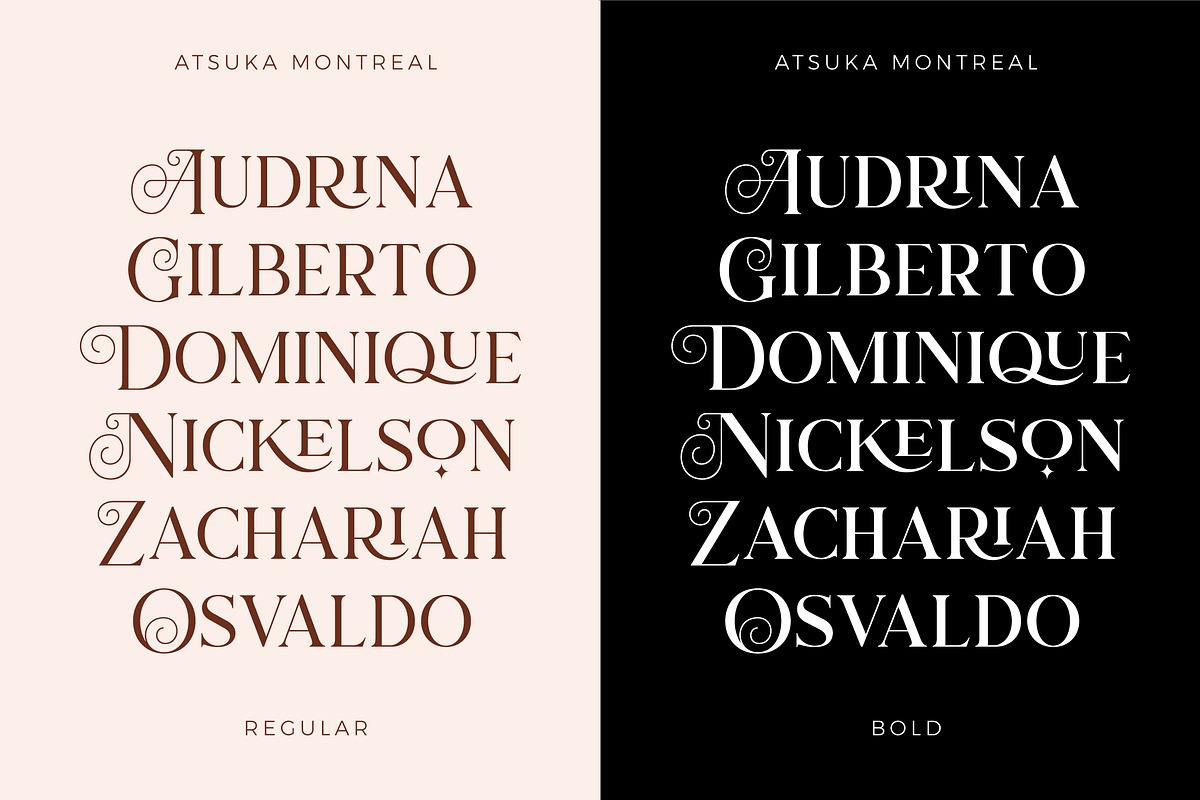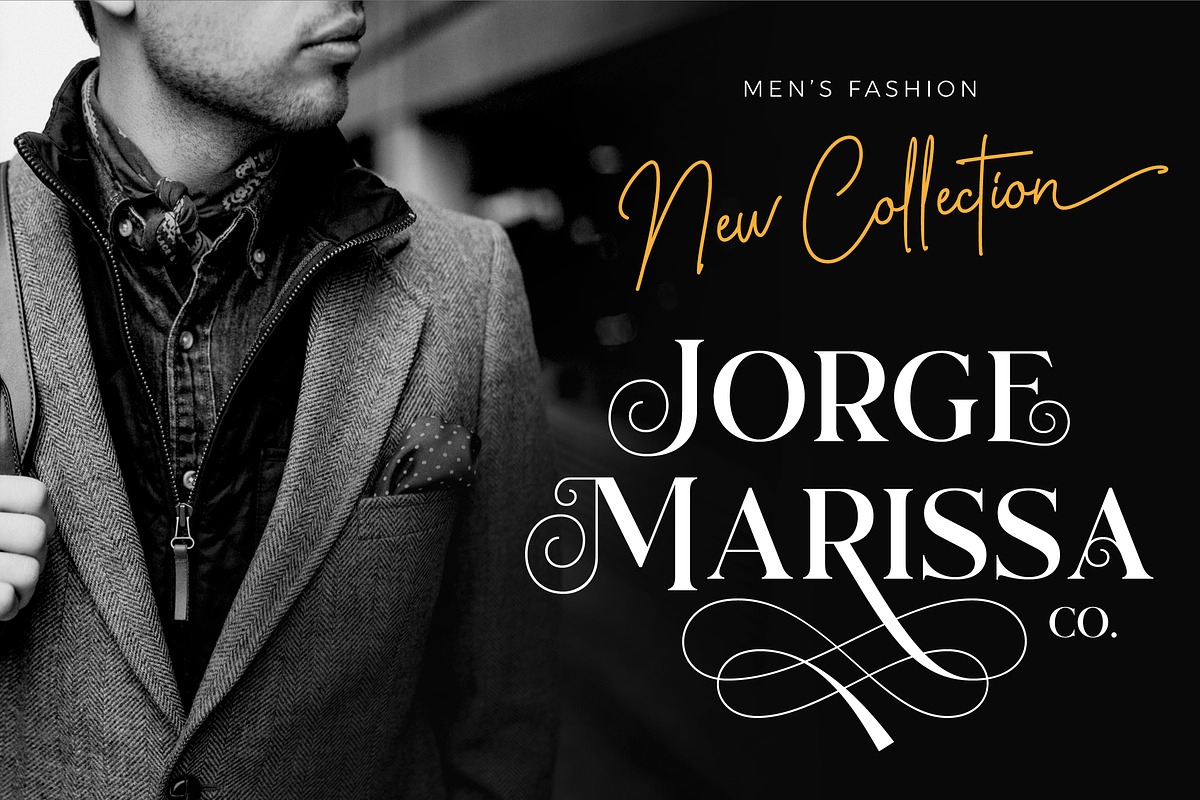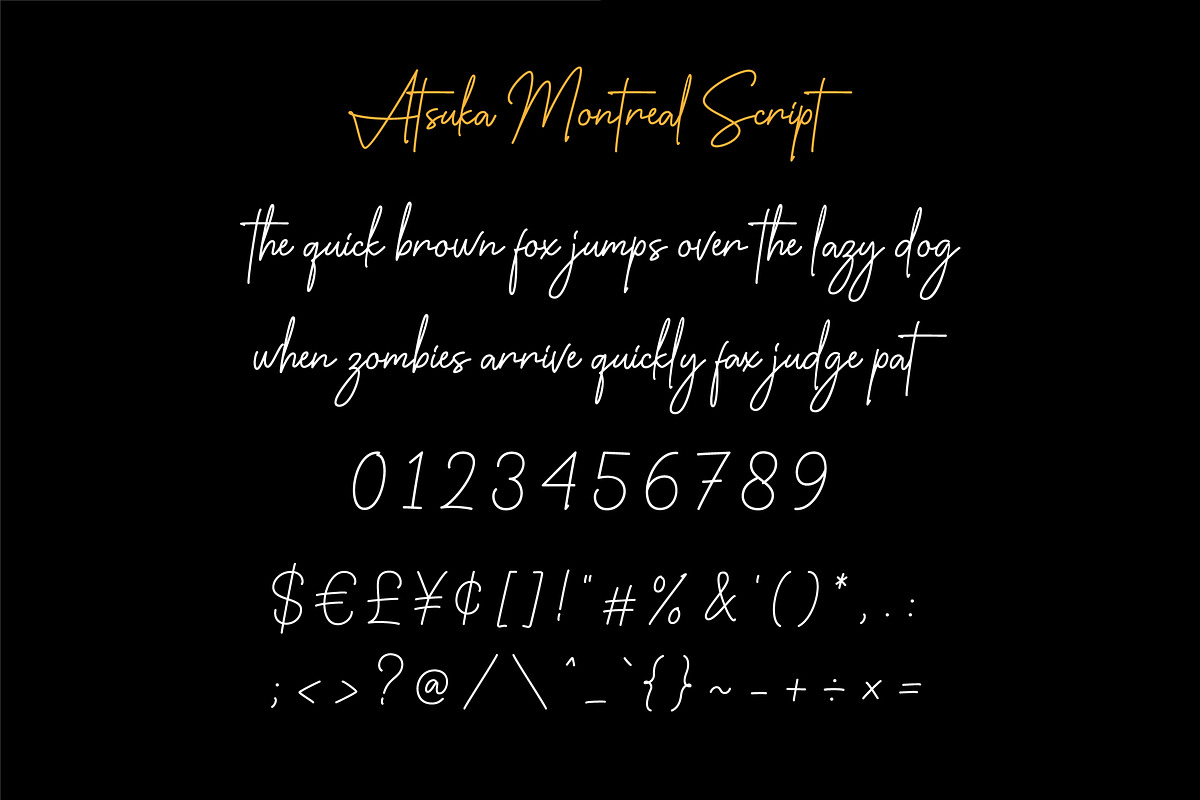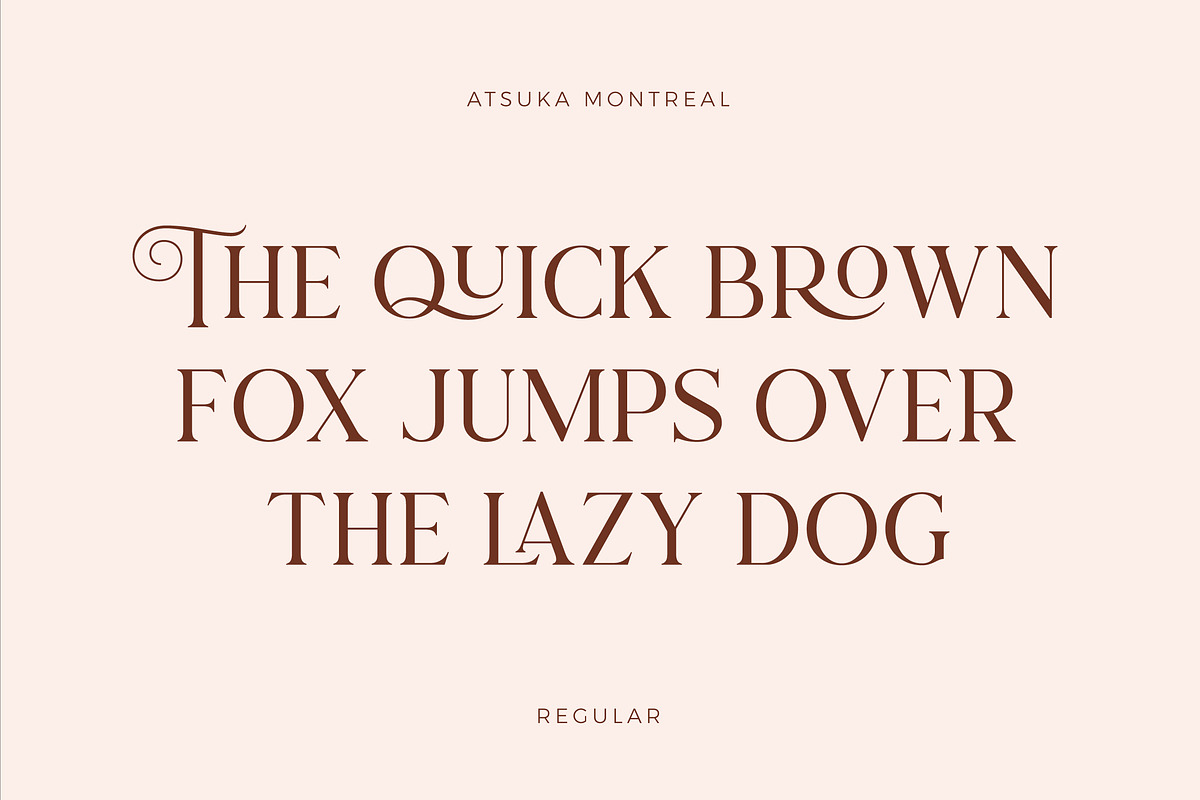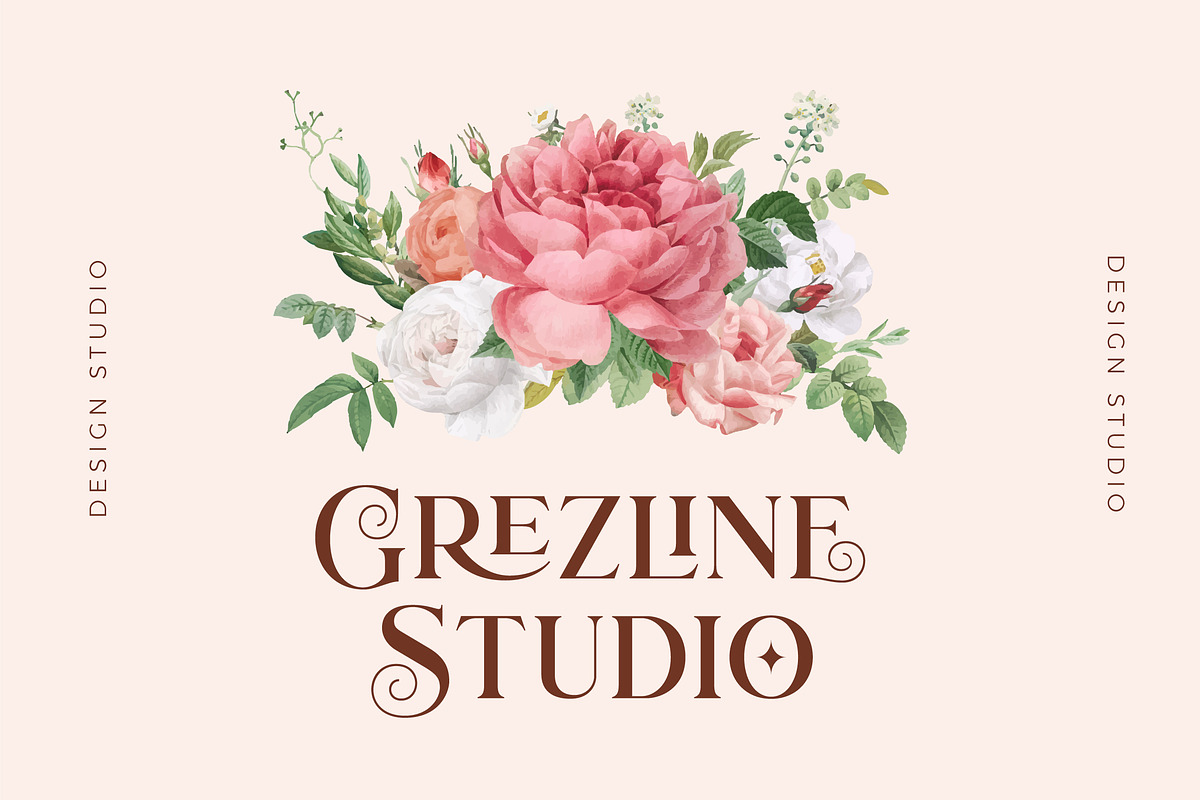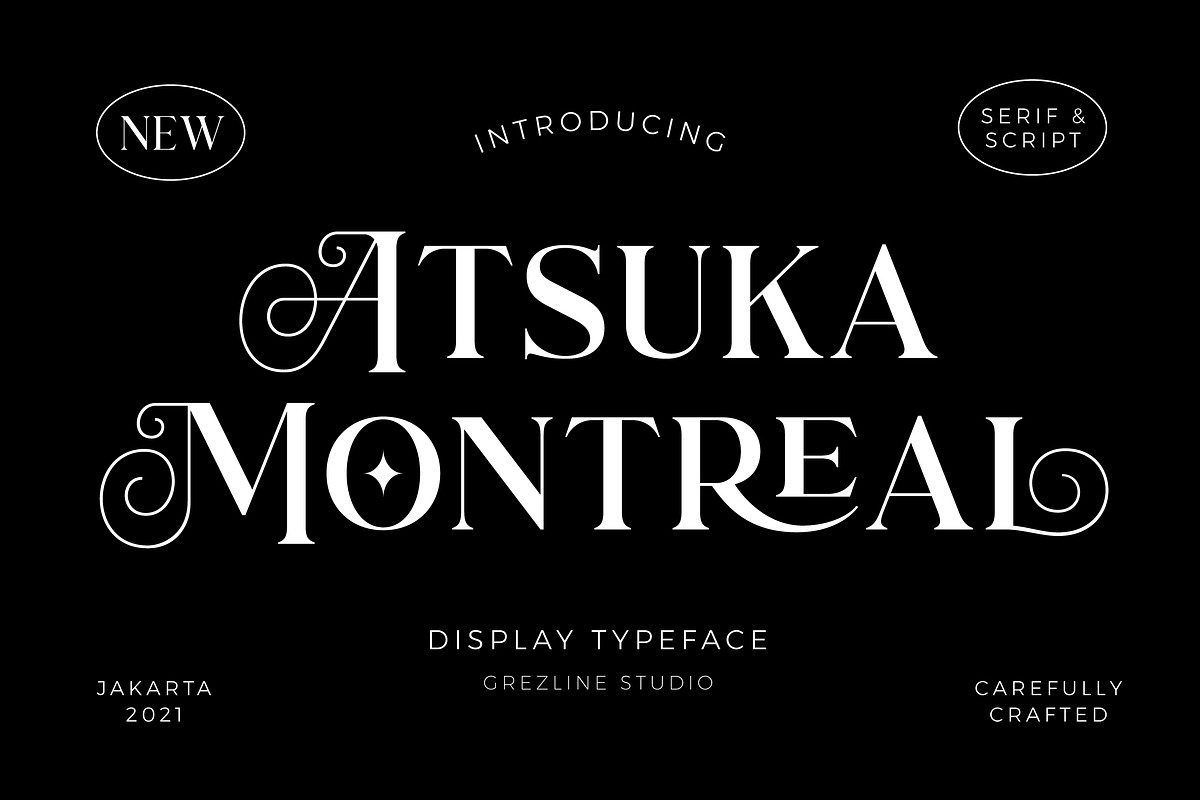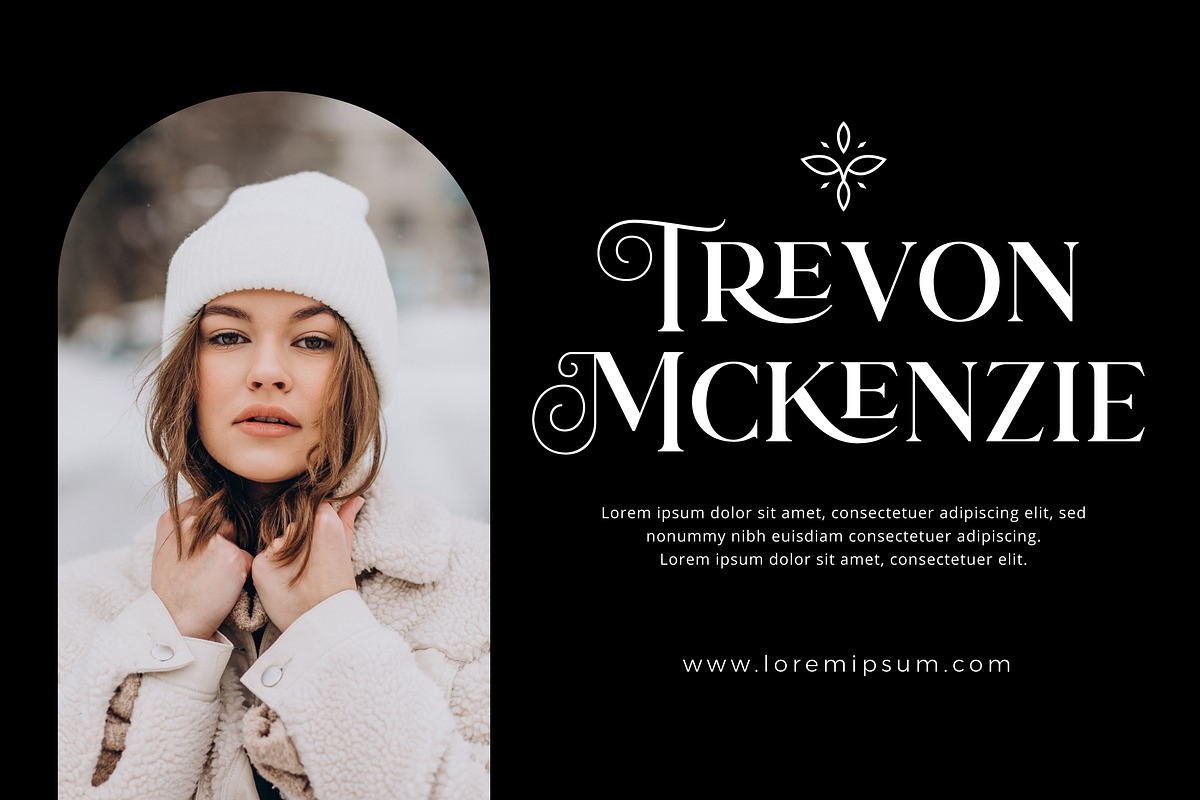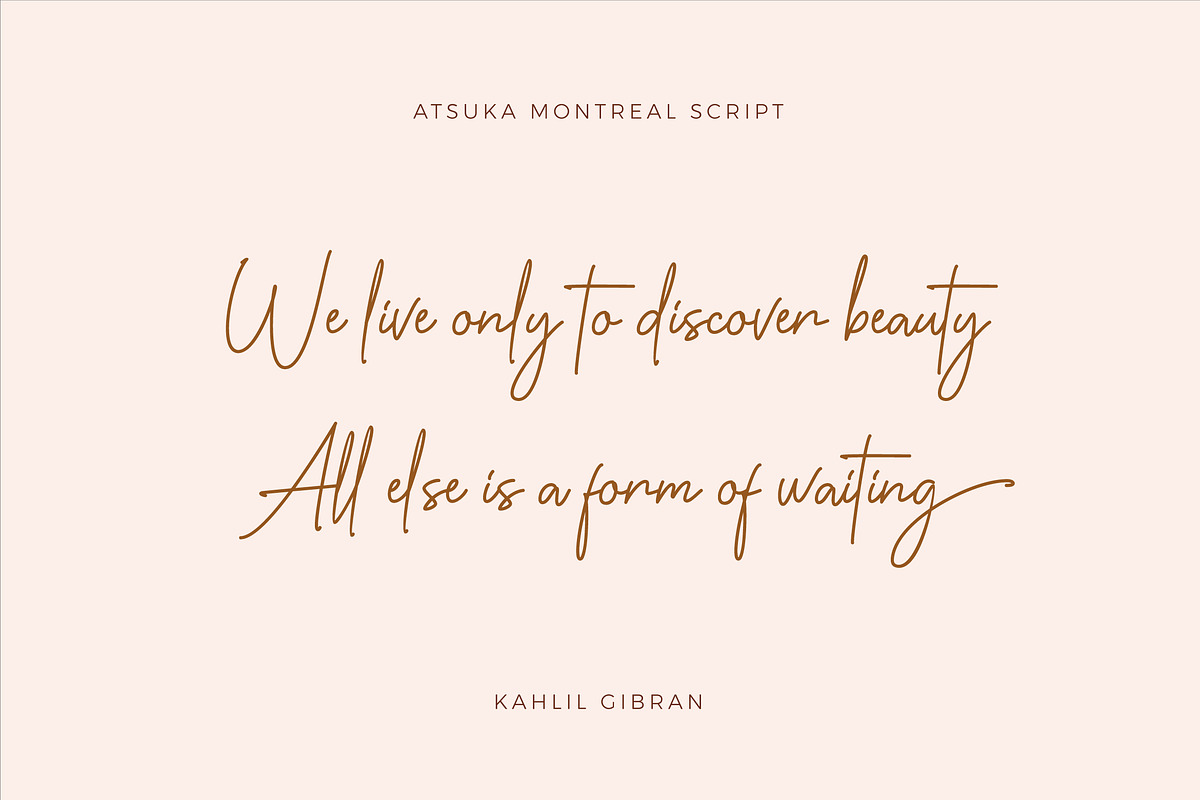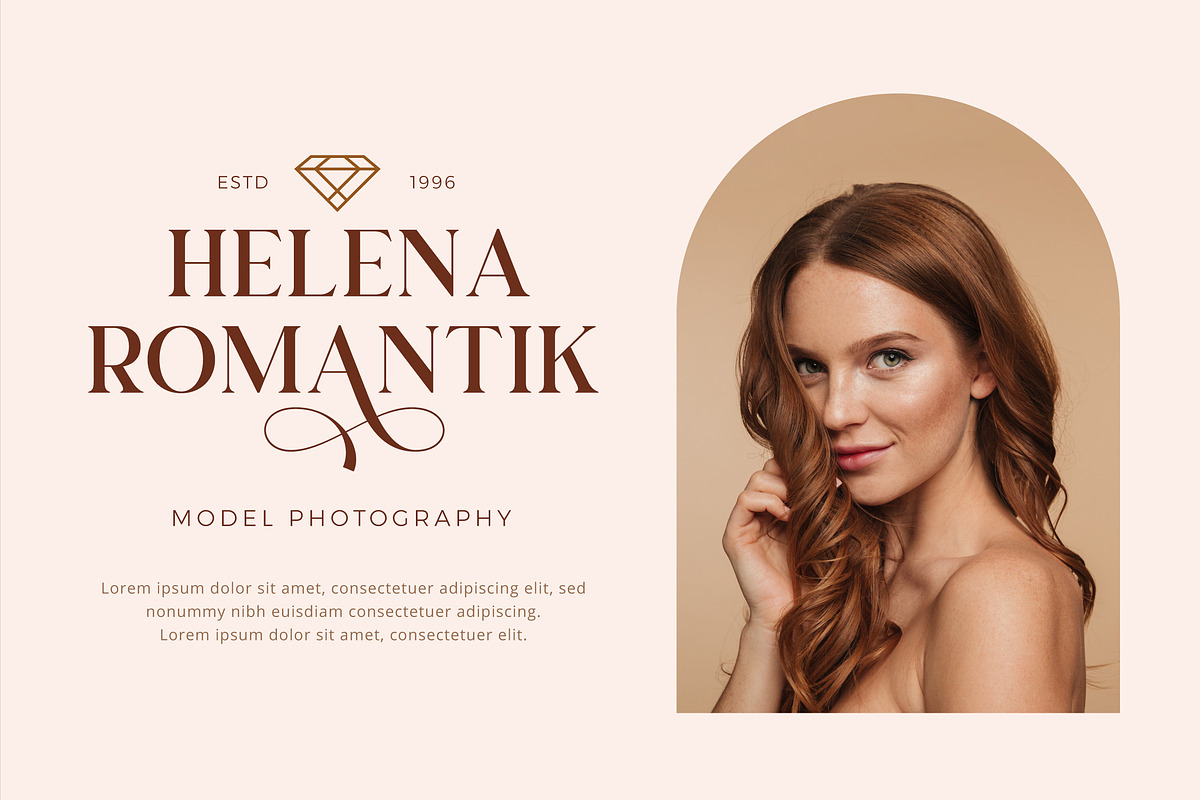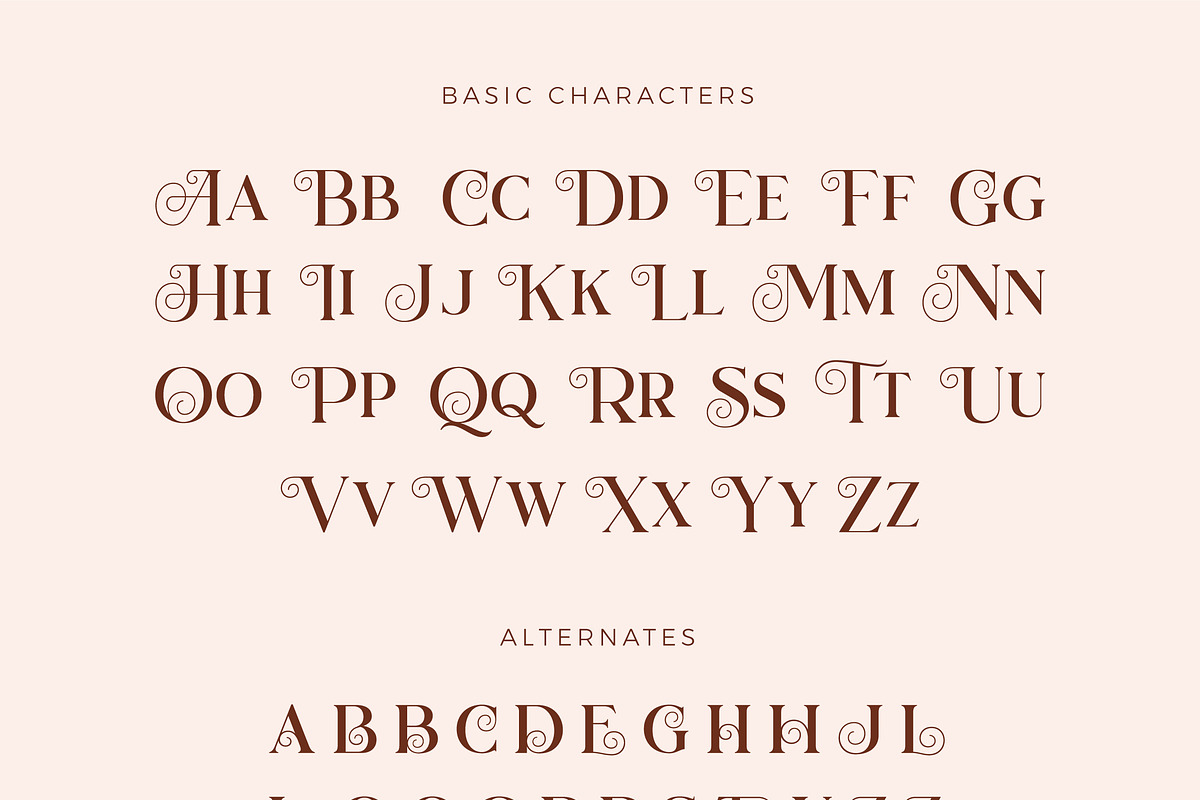
Atsuka Montreal - Font Family
Atsuka Montreal is a display font family with elegance and luxury aesthetic. It's a perfect use for any fashion design project. This font is accompanied by signature script to make your creation be more appealing and beautiful.
Atsuka Montreal font is also usable in a wide range of works such as logos, covers, posters, quotes, product packaging, merchandise, social media and much more!
- A lot of Alternates